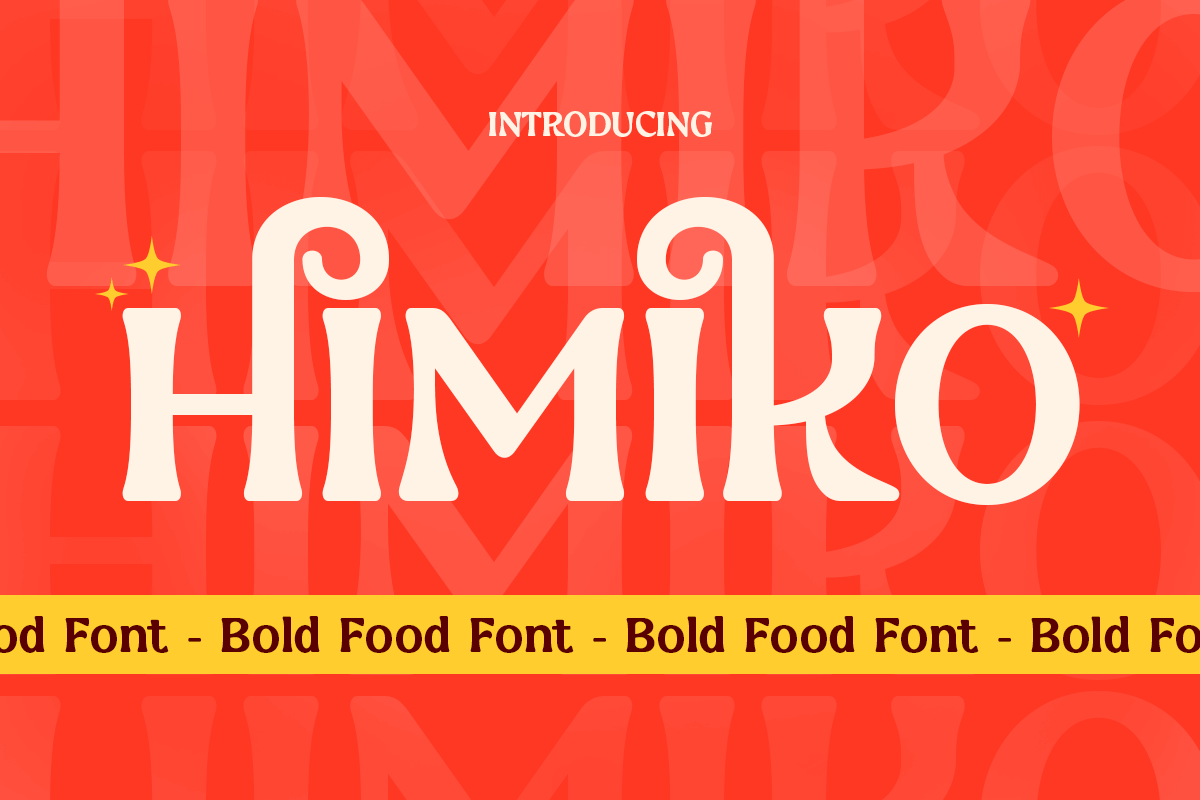
Himiko
-Bold Food Vintage FontHimiko - Bold Food Vintage Font
HIMIKO is a bold food font designed to make your culinary branding stand out. With its strong, eye-catching letterforms, HIMIKO brings a sense of flavor and creativity to your food-related projects. Perfect for restaurant logos, menus, packaging, and food promotions, this font exudes appetite and appeal.
Its bold style ensures that your brand gets noticed, while the playful yet professional design ensures it suits a variety of food categories. Whether you're designing for a gourmet restaurant, street food brand, or food packaging, HIMIKO adds a unique touch of deliciousness to your design.
HIMIKO – Bold Food Font Features
Bold, impactful letterforms with a food-inspired design
Perfect for logos, menus, packaging, and food-related branding
Creative and modern font ideal for food branding
OpenType features for enhanced typographic styling
Make your food brand irresistible with HIMIKO – the ultimate bold font for culinary branding and design. 🍔🍕✨